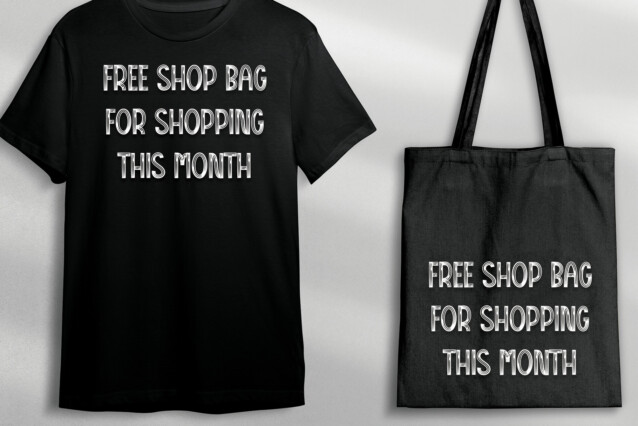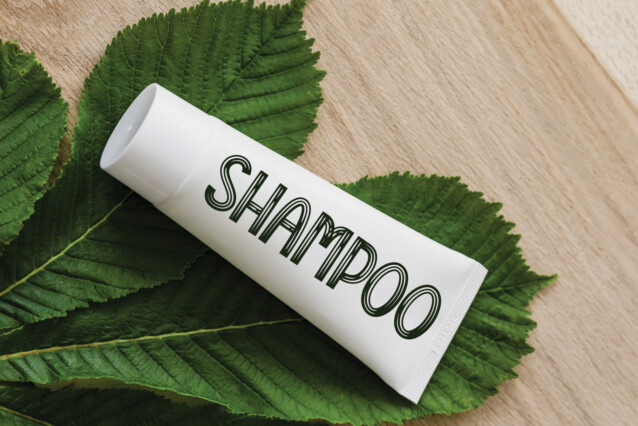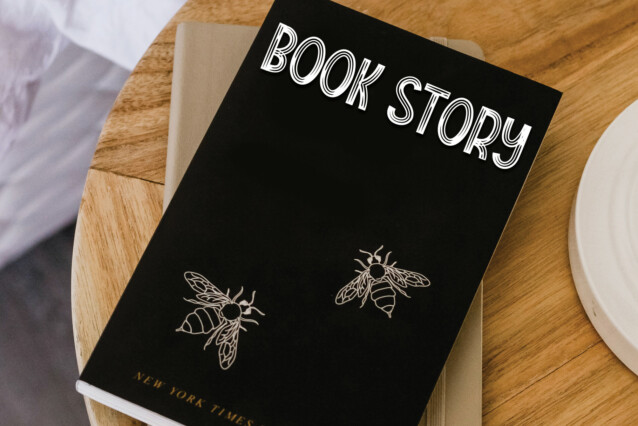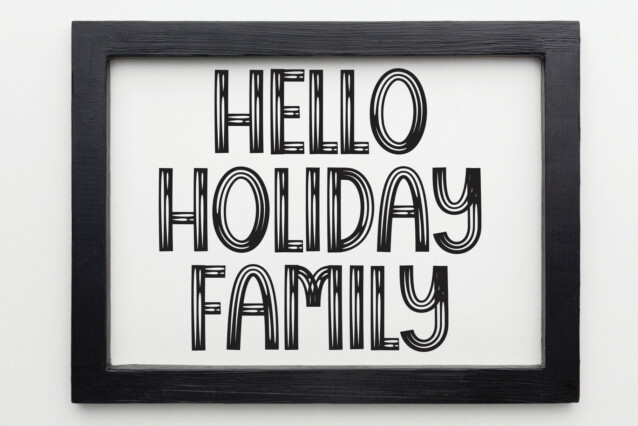
Order Online Display Font
Order Online Display Font is a unique sans-serif font. Its latest style letters are perfect for wall displays, wedding invitations, social media post logos, advertisements, product packaging, product designs, labels, photography, watermarks, invitations, stationery, and any project that requires modern typography.